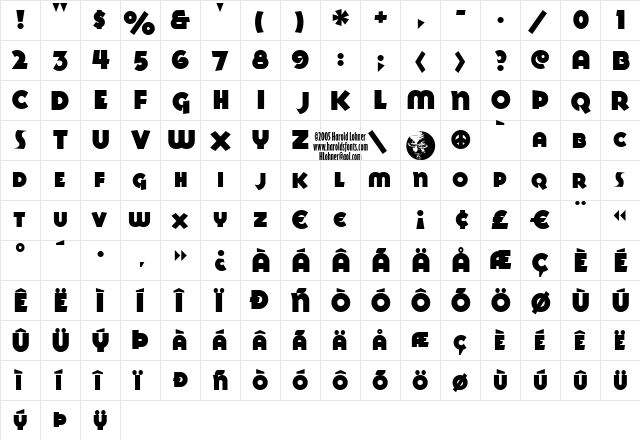
GoyaUltra Regular
Design Context for GoyaUltra Typeface
GoyaUltra is a composed and adaptable typeface that performs quietly and consistently across a wide range of design contexts.